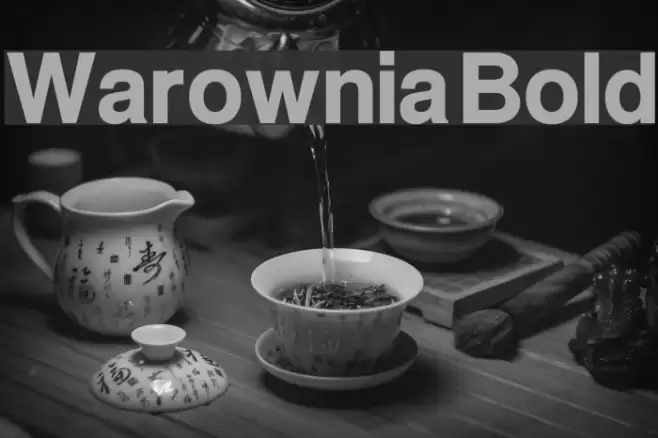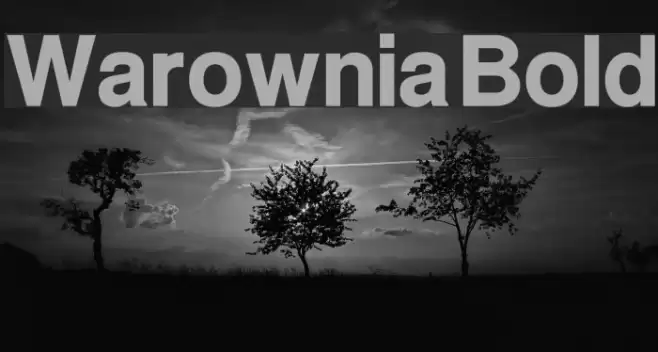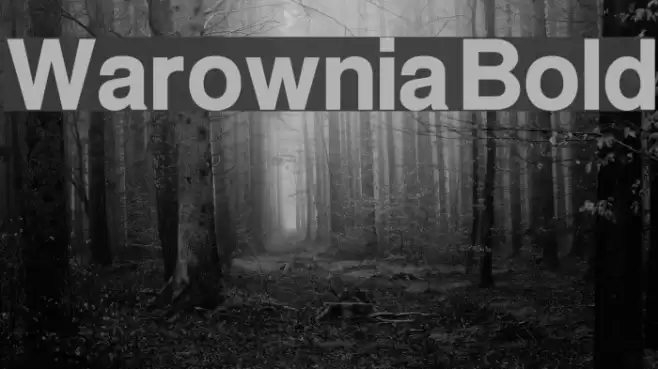
Warownia Bold Font
Warownia Bold Description
This typeface exhibits a bold and commanding presence, characterized by its thick, uniform strokes and clean lines. The uppercase and lowercase letters maintain a consistent weight, providing a sense of stability and strength. The numerals are equally robust, ensuring clarity and readability. Special characters are designed with the same boldness, making them stand out effectively. The overall design is straightforward and modern, with no unnecessary embellishments, making it suitable for a wide range of applications where impact and clarity are essential.
A bold, modern typeface with thick, uniform strokes and clean lines from Uncategorized fonts.
- Proposed Projects: Ideal for headlines, posters, branding, and any project requiring a strong visual impact.